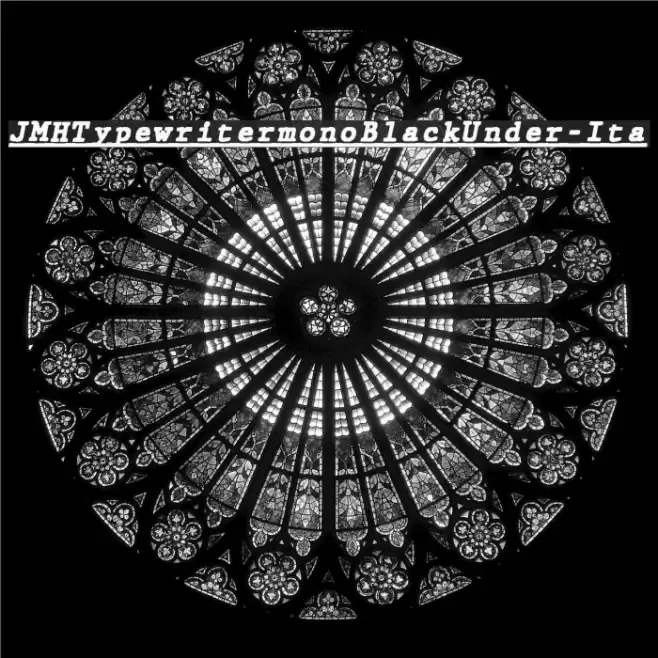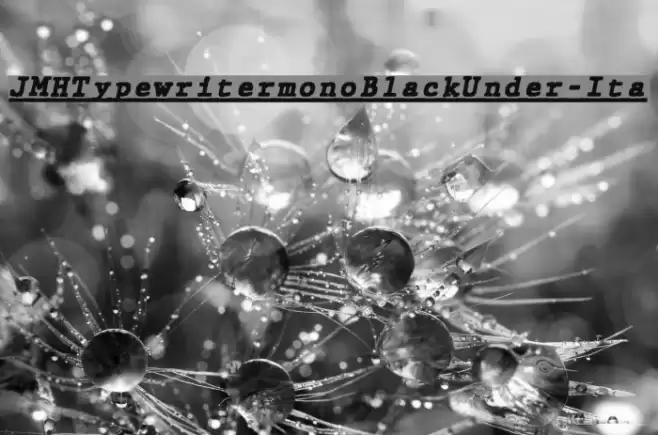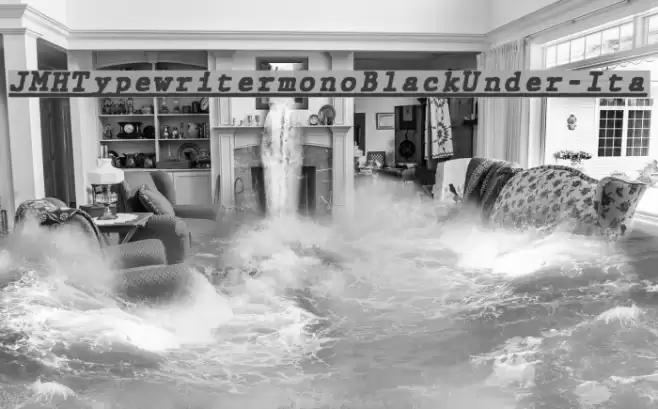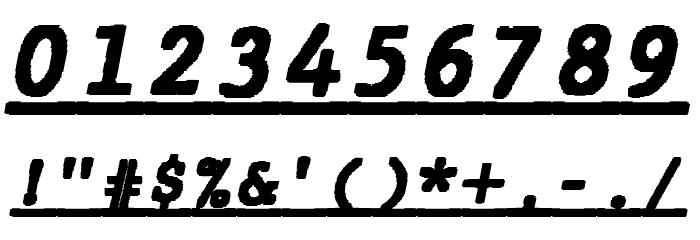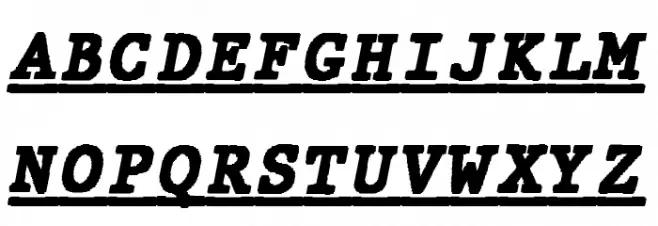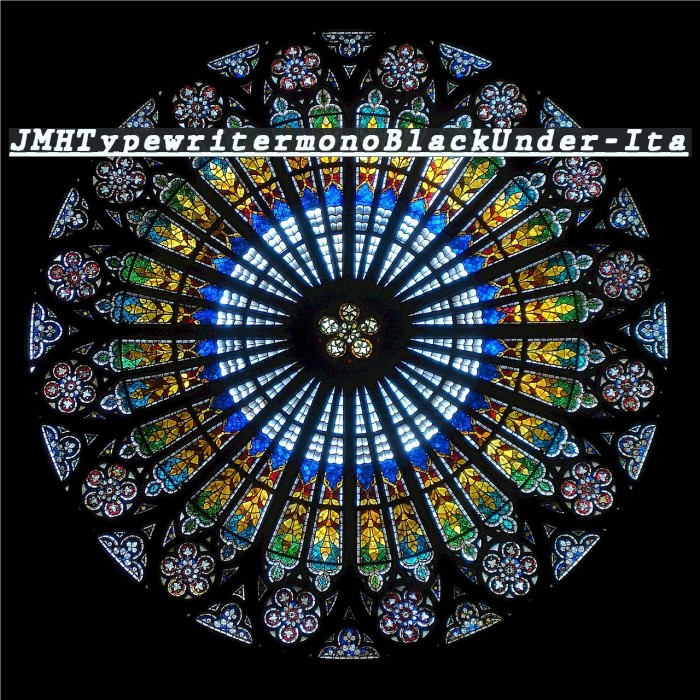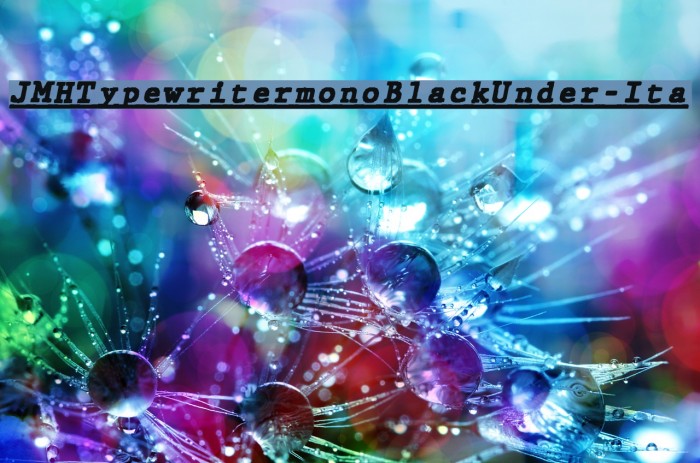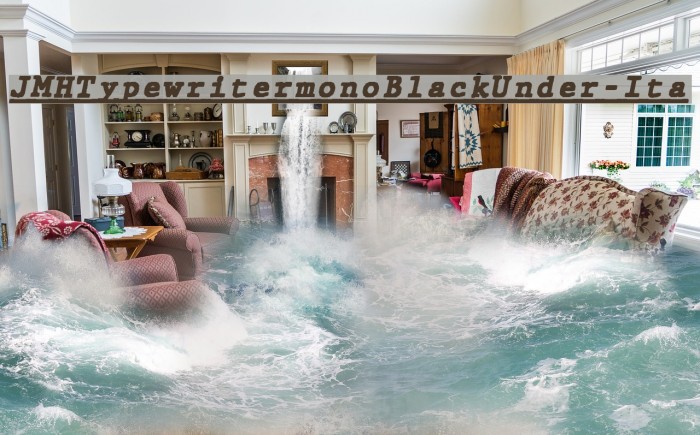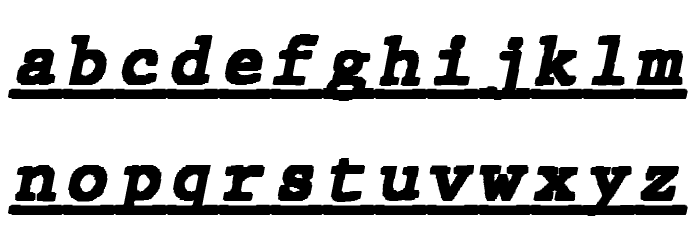
JMHTypewritermonoBlackUnder-Ita Font
JMHTypewritermonoBlackUnder-Ita Description
This typeface features a monospaced design with a distinct typewriter aesthetic. Each character is uniformly spaced, creating a mechanical and structured appearance. The letters are bold and underlined, adding emphasis and a vintage feel reminiscent of old typewriter fonts. The italic style gives it a unique slant, enhancing its retro charm. The font maintains clarity and readability, making it suitable for various design applications. Its bold strokes and consistent spacing make it ideal for projects that require a nostalgic or industrial look.
A bold, monospaced typewriter-style font with underlined and italicized characters from Uncategorized fonts.
- Proposed Projects: Ideal for retro-themed designs, coding environments, typewriter art, and vintage branding projects.
- Overall Style: Vintage
- Use Case: Headlines, Logos, Coding